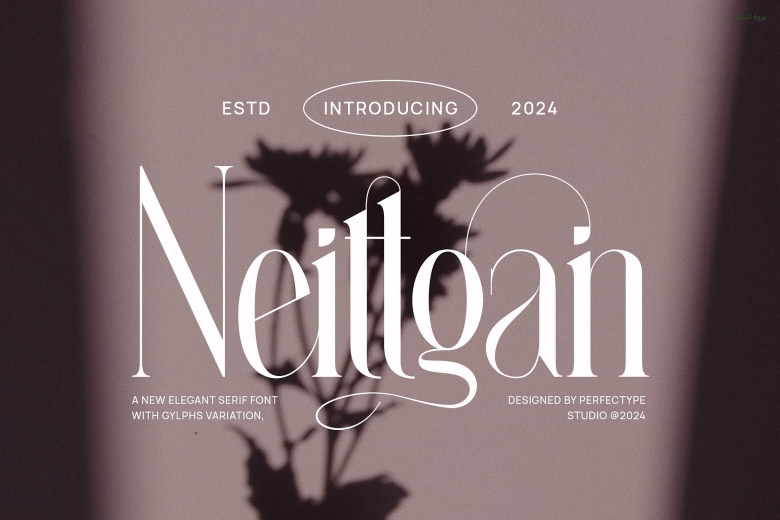
Neittgan Font
Neittgan is a modern serif font suitable for the most fashionable individuals’ communication and expanding the circle of decorative fonts. It has elegant, smooth shades and a particular form of classy look-on it; it is made for projects searching for the blend of contemporary simplicity and traditional elegance. Neittgan is versatile and gives a sleek touch to the editorial a branding designs.
Neittgan Serif Font